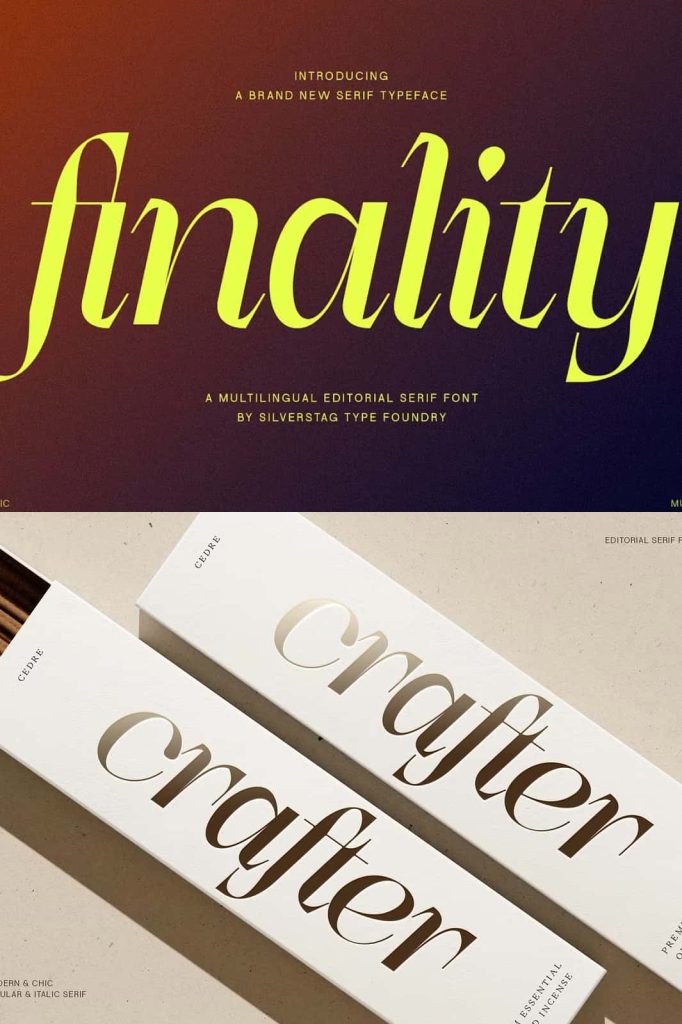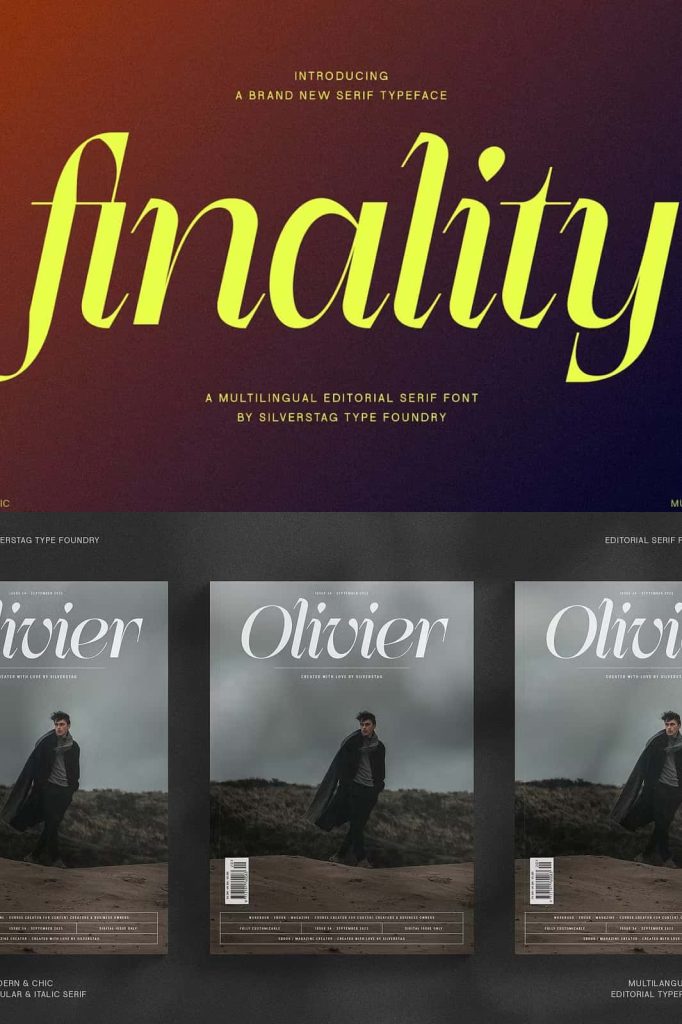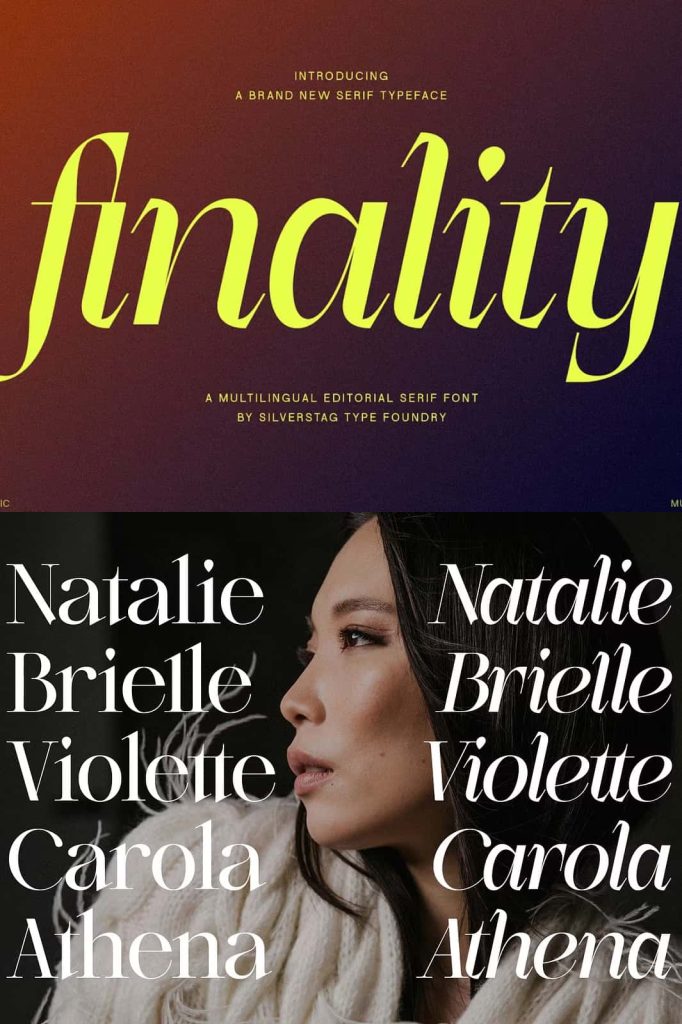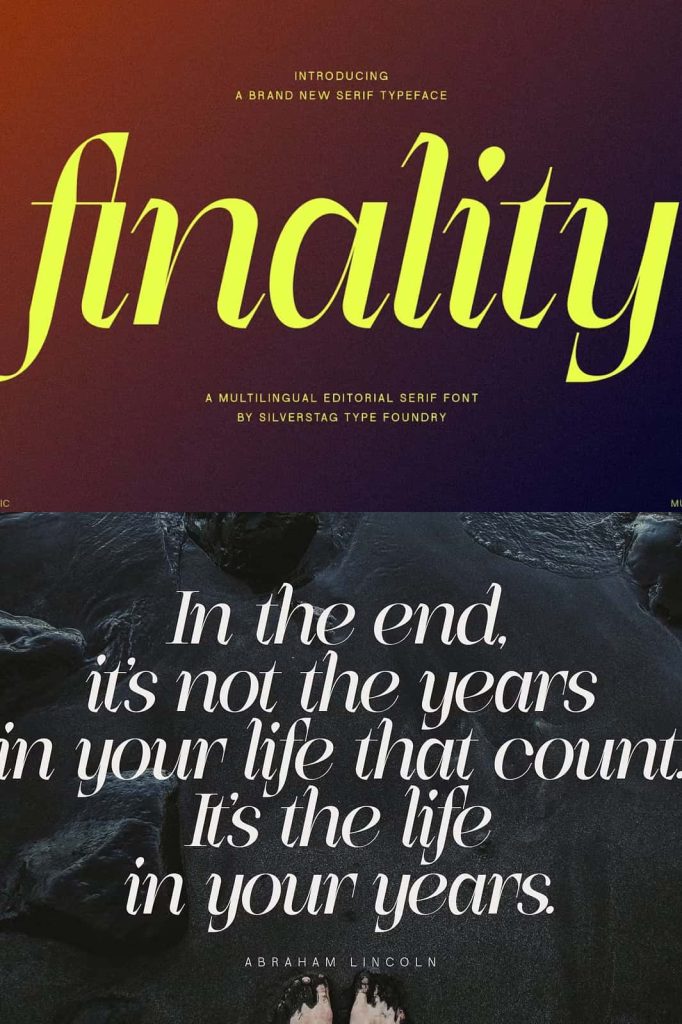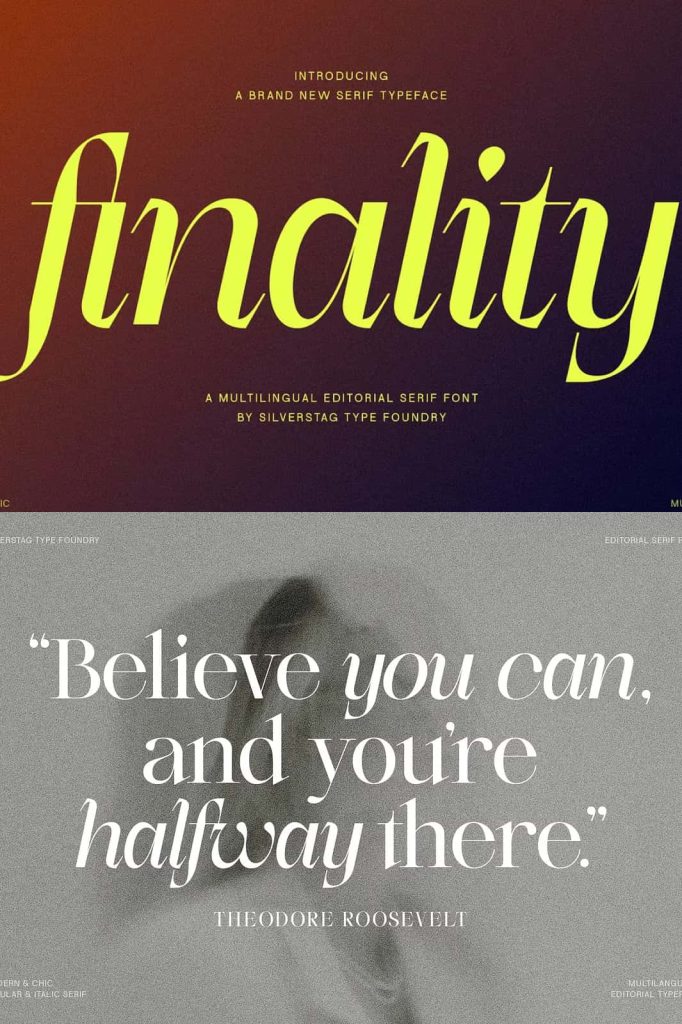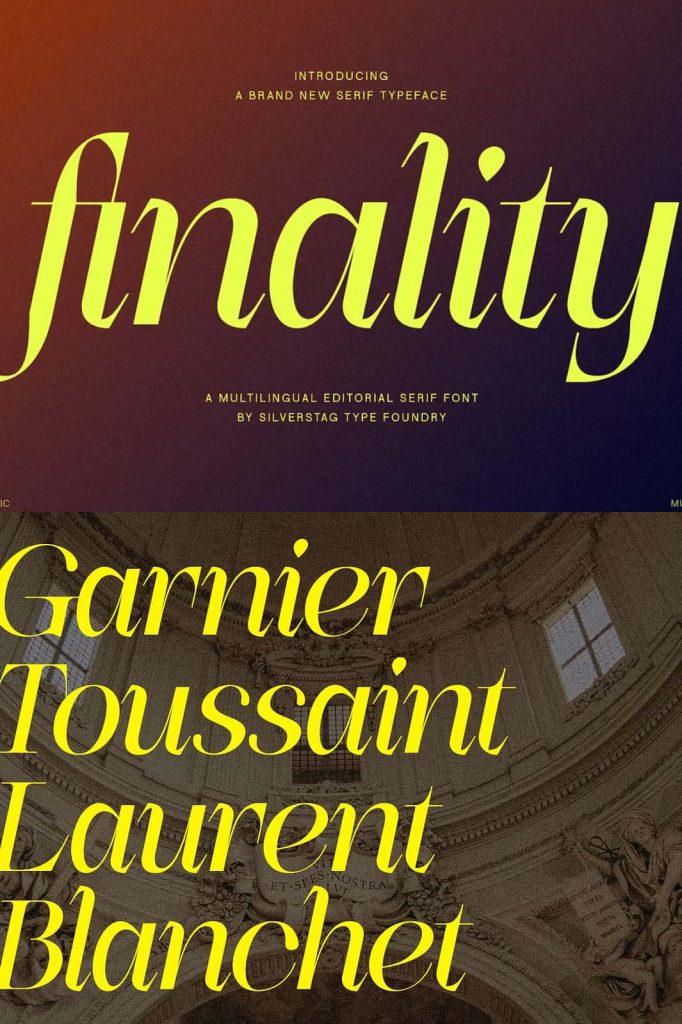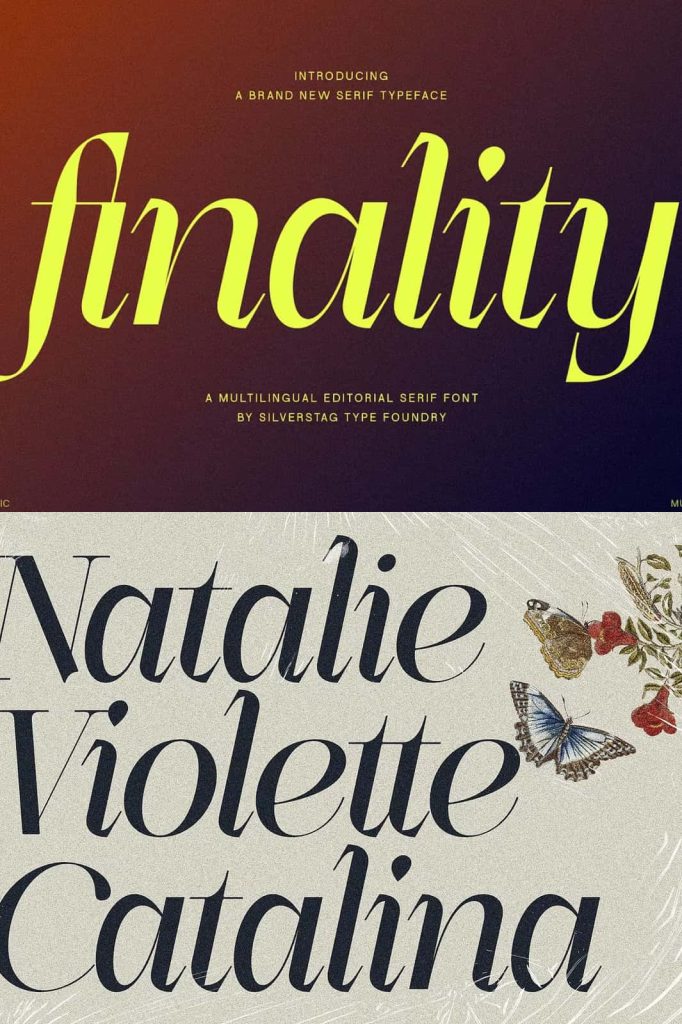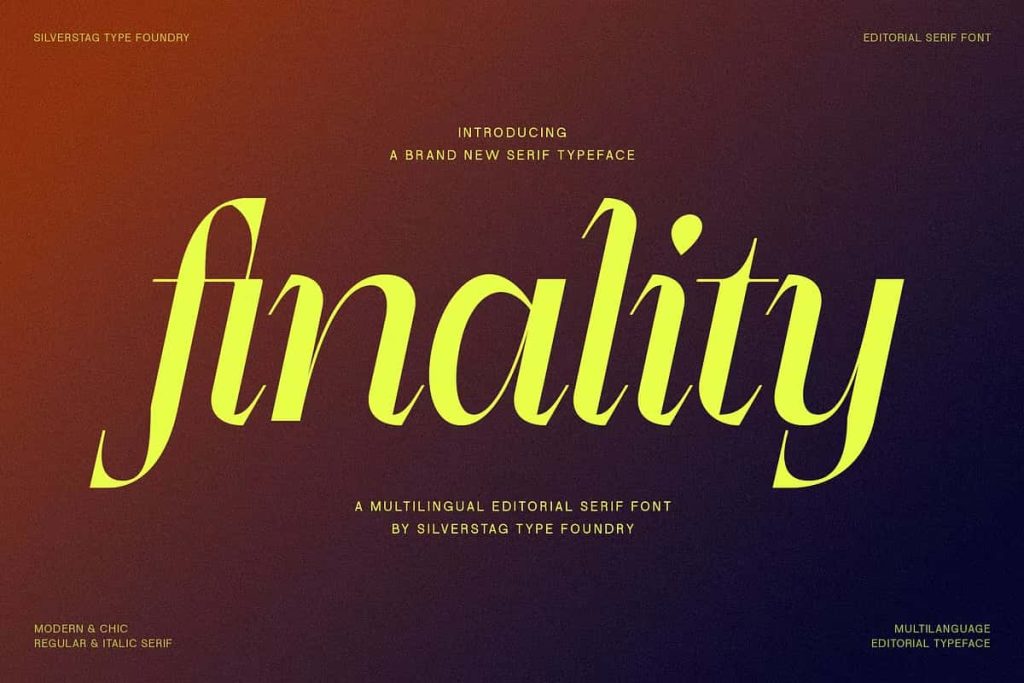
Finality is an editorial display serif that transcends the ordinary. It’s a font that speaks volumes with its striking contrast between thin and thick strokes, gracefully rounded serifs, and a captivating blend of classic and contemporary aesthetics.